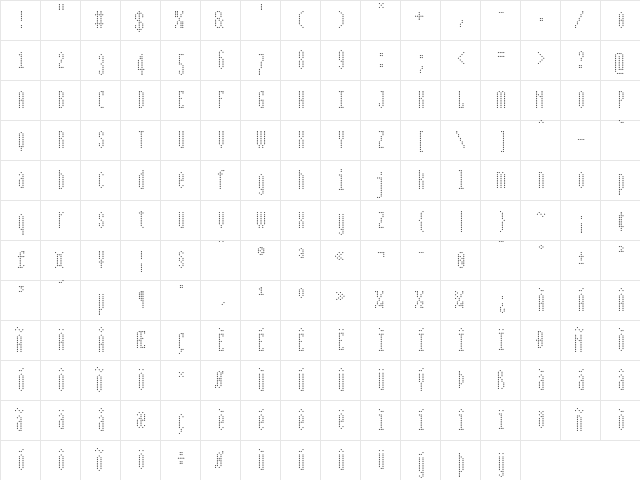
BPdotsCondensedDiamond Regular
| Foundry | George Triantafyllakos |
| Designer | George Triantafyllakos |
Design Context for BPdotsCondensedDiamond Typeface
BPdotsCondensedDiamond is rooted in pixel-grid construction, making it a natural fit for game UI, retro computing aesthetics, and digital nostalgia projects.
Well-suited to indie game interfaces, retro computing aesthetics, and pixel art-adjacent design work.
Pro Tip: Use BPdotsCondensedDiamond at sizes that align with its pixel grid for the sharpest rendering — scaling to non-integer multiples can introduce unwanted blur.